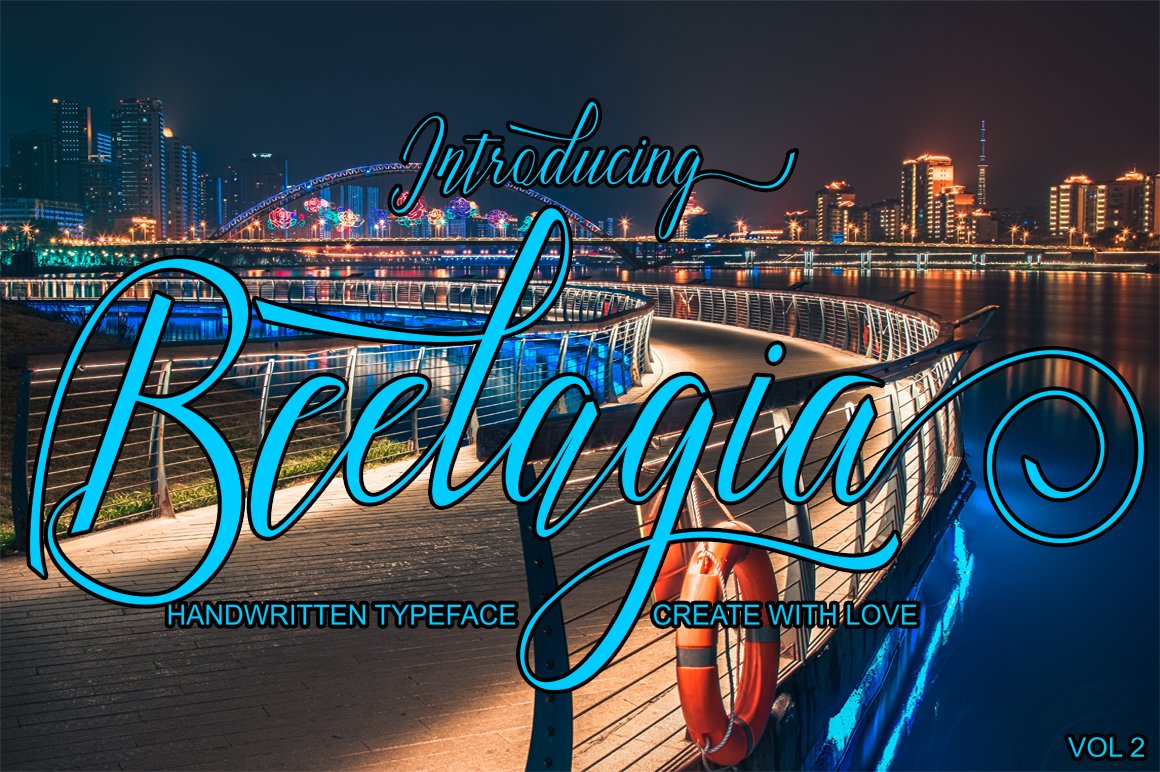
The Perfect Brushstroke: Discovering the Beauty of Beelagia Font
There’s something magical about holding a pen to paper and watching words come to life. The scratch of the nib, the flow of ink, and the dance of letters on the page – it’s a feeling that never gets old. For designers, this moment is what it’s all about: bringing creativity to life through the perfect combination of typography and design.
That’s where Beelagia Font comes in – a beautiful and flourished modern script font with a handmade calligraphic style that’s sure to captivate your senses. With its incredibly decorative character alternates, Beelagia Font adds a charming dancing appeal to any project. Whether you’re a seasoned designer or just starting out, this font is a valuable addition to your toolkit.
So, what makes Beelagia Font so special? For one, its unique style and versatility make it perfect for a wide range of projects, from wedding invitations to branding and marketing materials. With Beelagia Font, you’ll be able to add a touch of elegance and sophistication to any design, making it a must-have for any designer looking to elevate their work.
- Unique Characteristics: This font features a unique blend of modern and vintage elements, with a bold and playful feel, making it ideal for use in graphic design, digital art, and typography.
Beelagia Font Review
I recently had the chance to work with the Beelagia font, and I must say it’s an interesting addition to the font library. Here’s my honest review:
- Unique aesthetic: Beelagia font has a distinct, playful feel that can add a touch of whimsy to your designs.
- Good for body text: The font is legible and easy to read, making it a suitable choice for body text in your designs.
- Great for creative projects: Beelagia font’s quirky nature makes it perfect for creative projects, such as posters, social media graphics, and more.
- Limited range: Beelagia font is quite limited in terms of its range of weights and styles, which can be a drawback for designers who prefer more options.
- Not ideal for formal projects: Due to its playful nature, Beelagia font may not be the best choice for formal or professional projects.
Overall, I think Beelagia font is a fun and quirky addition to the font library. While it may not be the most versatile font, it’s perfect for designers who want to add a touch of creativity to their projects. With its unique aesthetic and good legibility, Beelagia font is definitely worth considering for your next design project.
For best results, use Beelagia Font for headings and titles, and pair it with a clean sans-serif font for body text.
Beelagia Font is perfect for:
Designing invitations, greeting cards, and other paper crafts.
Creating custom logos, branding materials, and marketing collateral.
Adding a personal touch to digital designs, such as social media graphics and presentations.